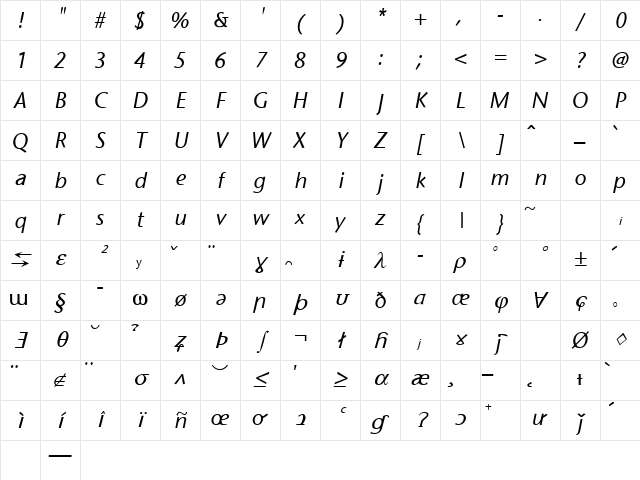
Zazsu Italic
Design Context for Zazsu
Zazsu is a composed and adaptable typeface that performs quietly and consistently across a wide range of design contexts. The slanted form adds forward momentum and visual energy.
Pro Tip: Use Zazsu for emphasis, pull quotes, and subheadings where its slanted energy can add rhythm to the layout.